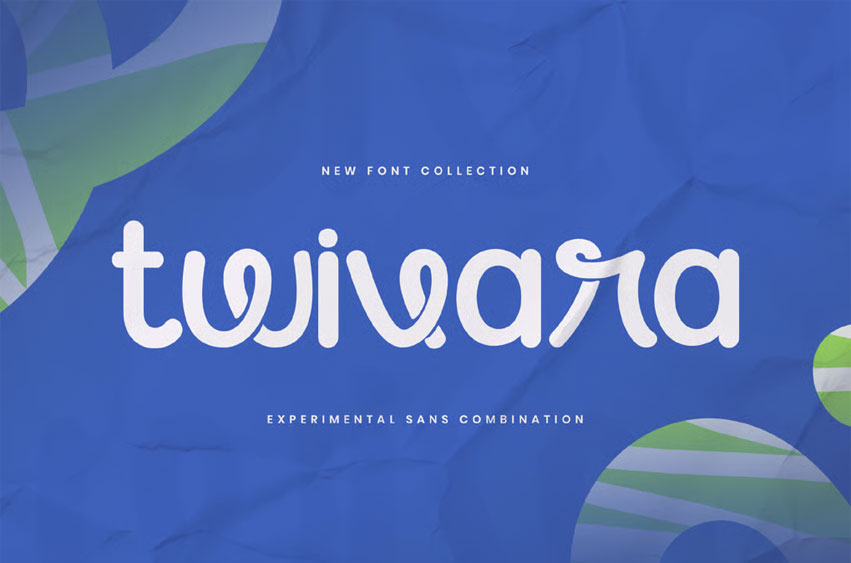
Twivara Font is an experimental sans-serif typeface that merges creativity and modern expression into one bold design. Its unique letterforms blend smooth geometric shapes with playful curves, creating a visual rhythm that feels both futuristic and friendly.
Perfect for designers who love to explore beyond the ordinary, Twivara brings a fresh, experimental energy to logos, posters, headlines, and digital artwork.
Twivara is the perfect choice for designers looking for a professional, timeless, and elegant sans serif font that delivers premium visual impact.